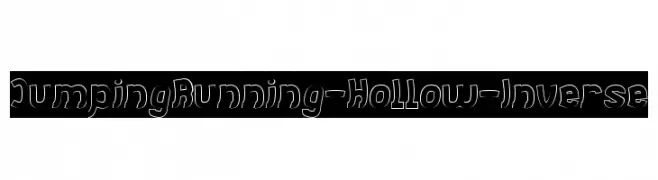
A bold, playful font with rounded, bubble-like characters.
A bold, artistic font with intricate curves and a modern flair.
A whimsical, hand-drawn font with a playful, storybook style.
A bold, hollow font with a modern slant and smooth curves.
A bold, dynamic font with rounded strokes and a slight slant.
A modern, hollow outlined font with consistent stroke width and rounded edges.
A modern, rounded font with a clean and approachable design.
A modern sans-serif font with rounded edges and excellent readability.
A modern, sleek font with flowing lines and a futuristic aesthetic.
A bold, geometric font with a futuristic and digital style.
A bold, rounded font with a modern-retro vibe and narrow structure.
A dynamic, italic serif font with sharp angles and high contrast.
A playful, hand-drawn font with elongated, dynamic characters.
A bold, angular font with a dynamic and modern style.
A bold, layered font with a modern, geometric style.
A bold, playful handwritten font with rounded, irregular characters.
A playful, bubble-like font with rounded, exaggerated characters.
A modern, futuristic font with bold, rounded geometric shapes.
A bold, angular font with sharp, geometric shapes and a dynamic, edgy style.
An angular, geometric font with a hollow design and ninja-inspired aesthetics.
A bold, hollow font with a modern, geometric design.
A bold, geometric font with a futuristic and dynamic style.
A modern, geometric font with clean lines and a bold presence.
A bold, geometric font with a hollow, outlined style for a modern look.
A bold, geometric font with a futuristic and industrial design.
A bold, dynamic font with a futuristic and energetic style.
A bold, hollow font with a modern and playful style.
A bold, rounded font with a playful and modern style.
A bold, futuristic font with sharp, angular edges and a geometric style.
A futuristic, angular font with geometric shapes and a robotic aesthetic.
A geometric, angular font with a futuristic and bold design.
A modern, geometric font with a futuristic and cohesive design.
A modern, playful font with smooth, continuous lines and a structured appearance.
A modern, elegant font with flowing curves and sharp edges.
A bold, futuristic font with geometric shapes and sharp angles, ideal for dynamic designs.